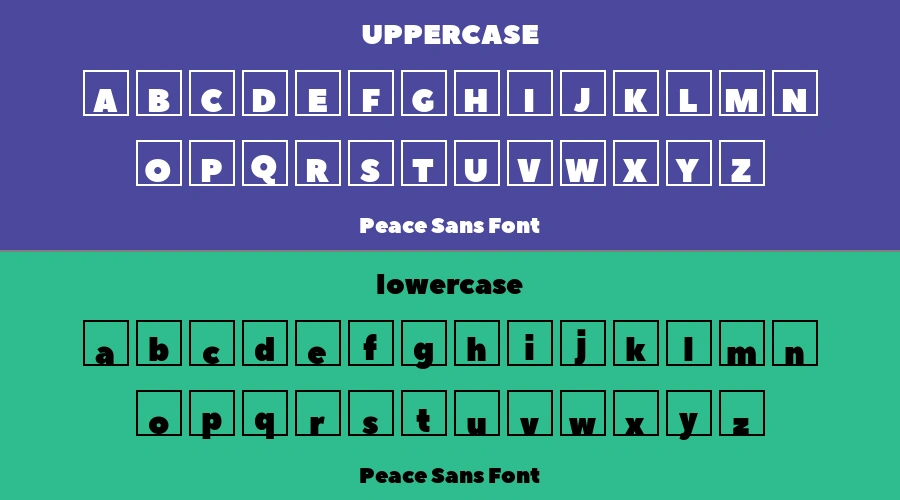
About Peace Sans Font
Peace Sans Font represents a sophisticated approach to type design, balancing playful elements with versatility. Perfect for web design, this font family showcases impressive consistency and aesthetic excellence throughout its character set. Designers appreciate its versatility and reliability.
Designers will appreciate nuanced touches including contextual swashes and decorative caps, adding sophistication to any project. These features become apparent in hero imagery, where detail preservation matters most. The careful treatment of counter shape and creative versatility ensures optimal performance.